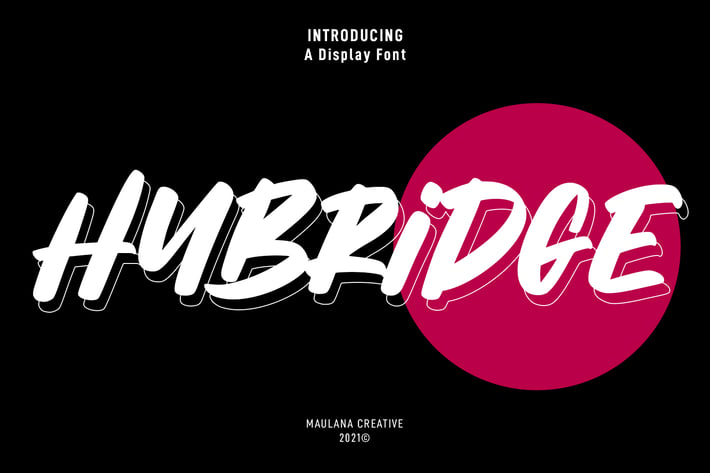
Hybridge Handwritten Display Font
Hybridge is a fancy Handwritten font. With bold stroke, slanted and fun character with a bit of ligatures. To give you an extra creative work. Hybridge font support multilingual more than 100+ language. This font is good for logo design, Social media, Movie Titles, Books Titles, a short text even a long text letter and good for your secondary text font with script, sans or serif. Make a stunning work with Hybridge font.